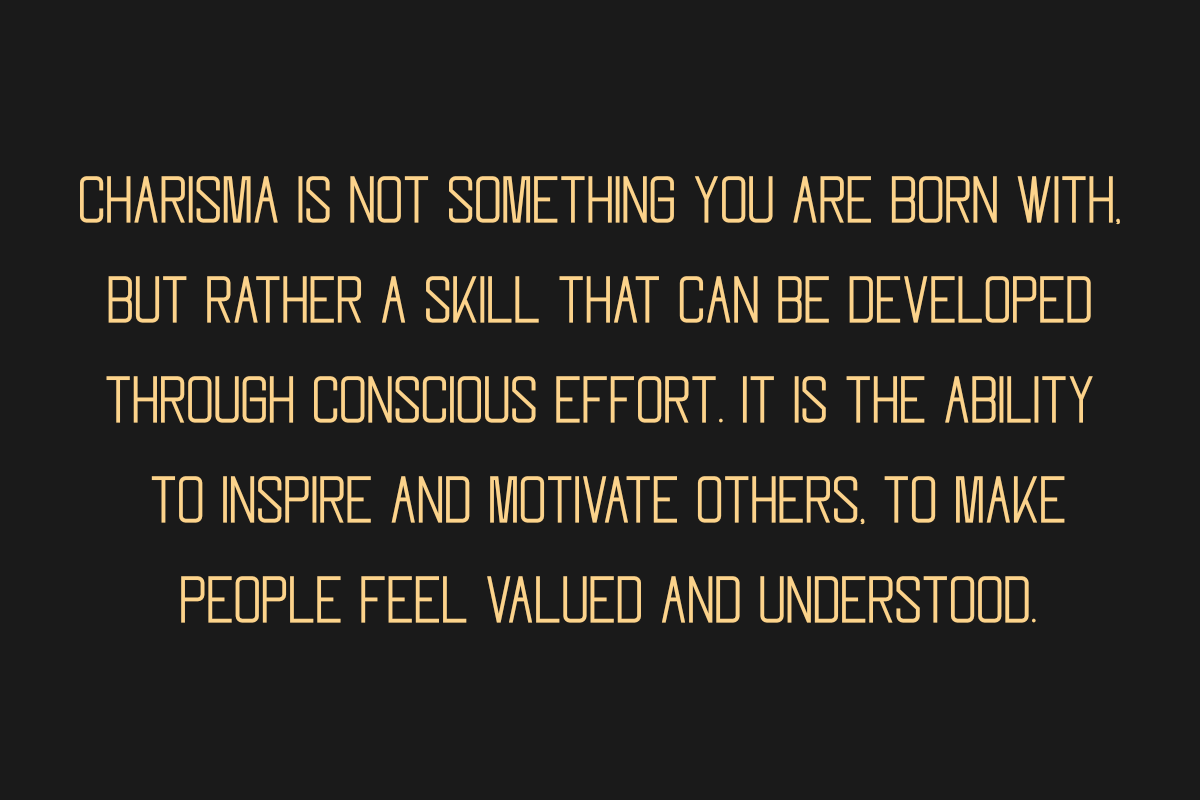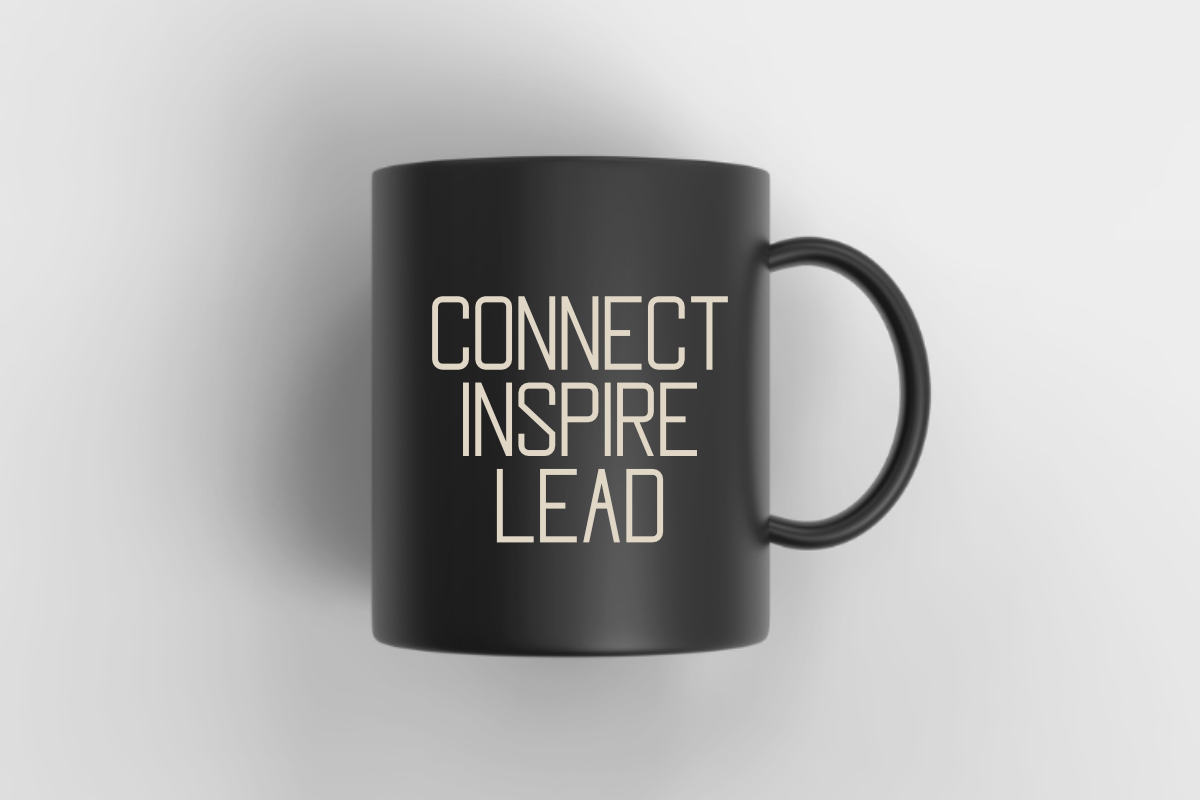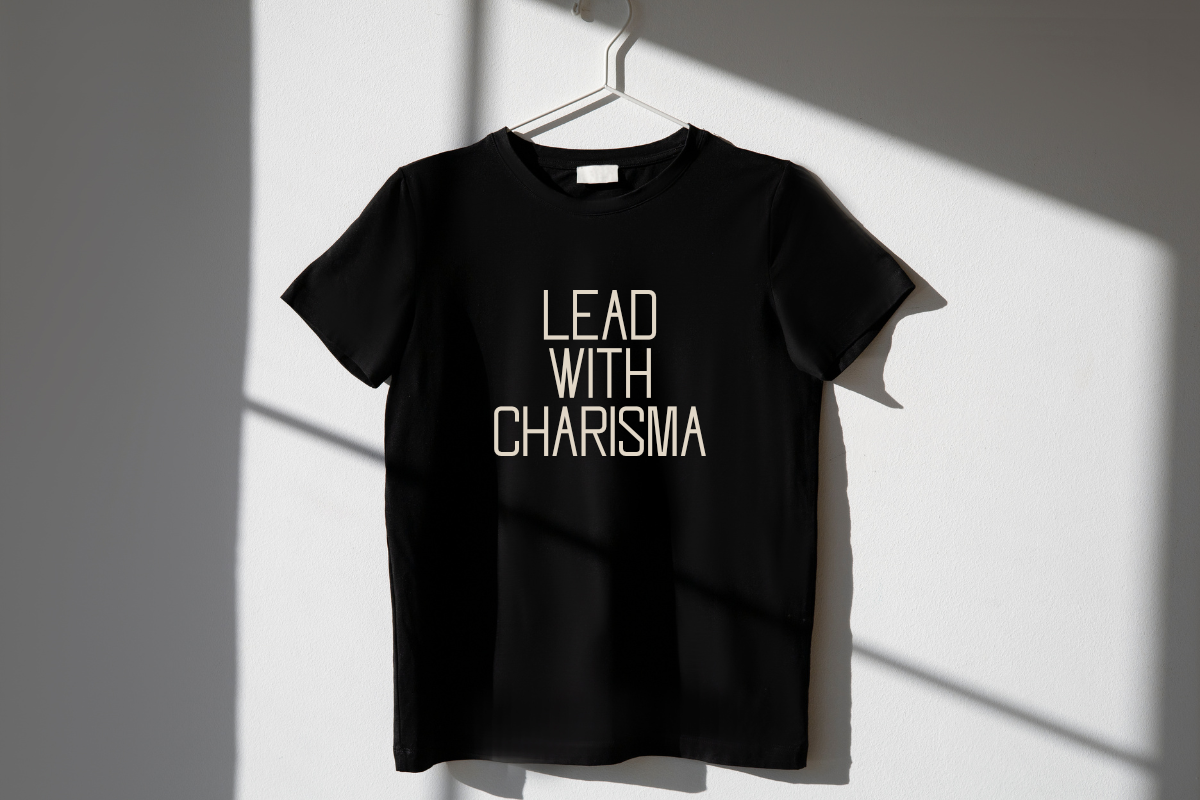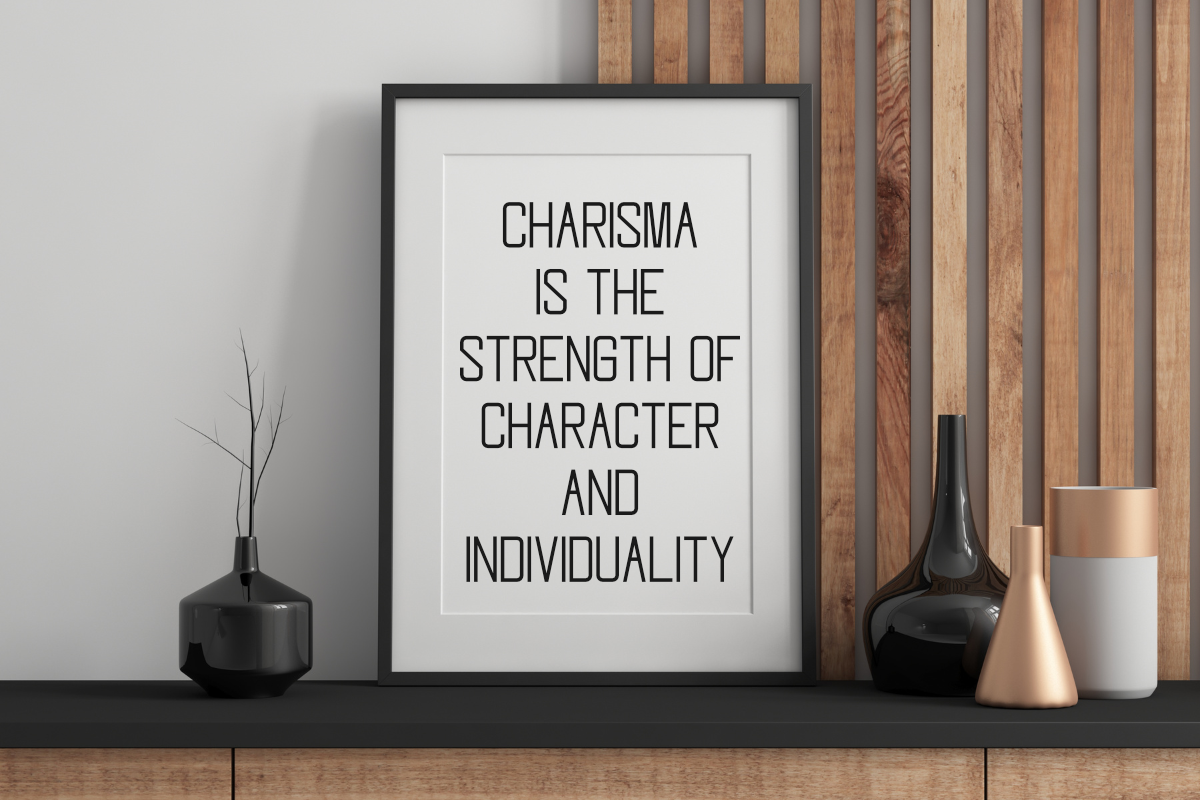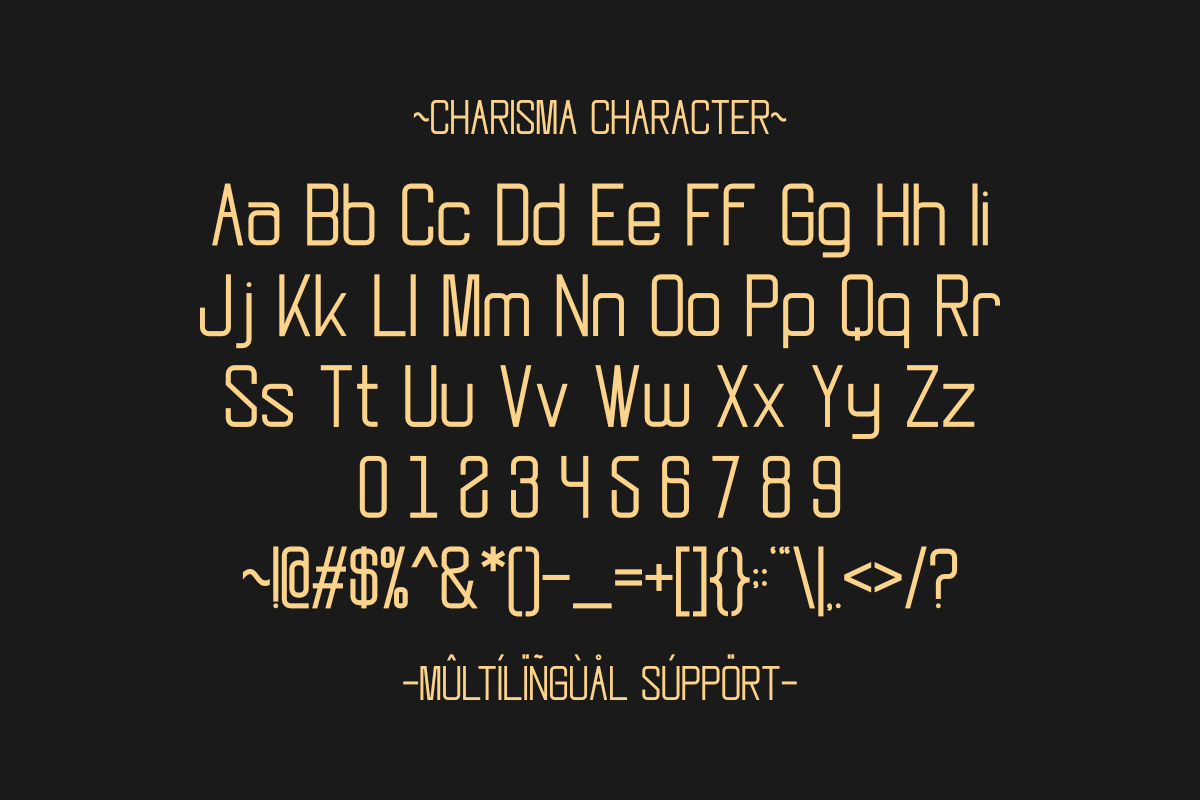
Charisma - Minimalist Sans Serif
Charisma is a minimalist sans serif font with a delicate monoline design. Its clean lines and subtle curves create a sophisticated and timeless aesthetic. Perfect for creating elegant and understated designs for mockups, wall art, and planners.